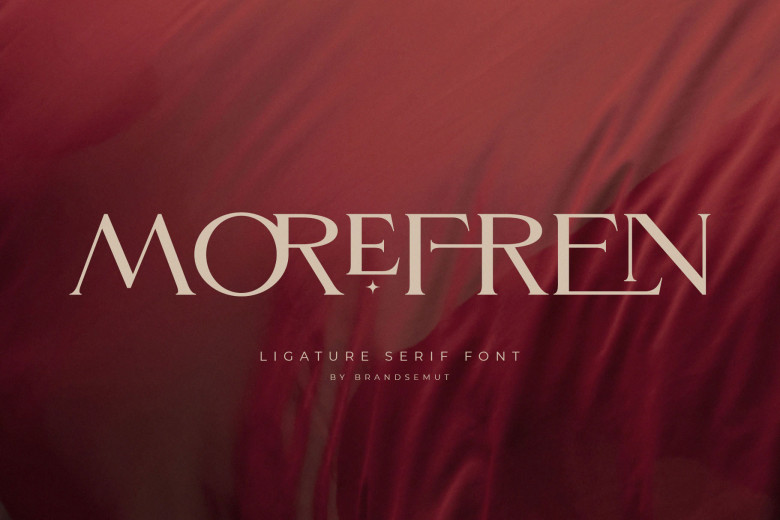
Morefren Font
Morefren is an elegant and distinct serif font – you’ll fall in love with its incredibly versatile style and use it to create gorgeous wedding invitations, beautiful stationary art, and social media and much more!
Morefren Serif Font